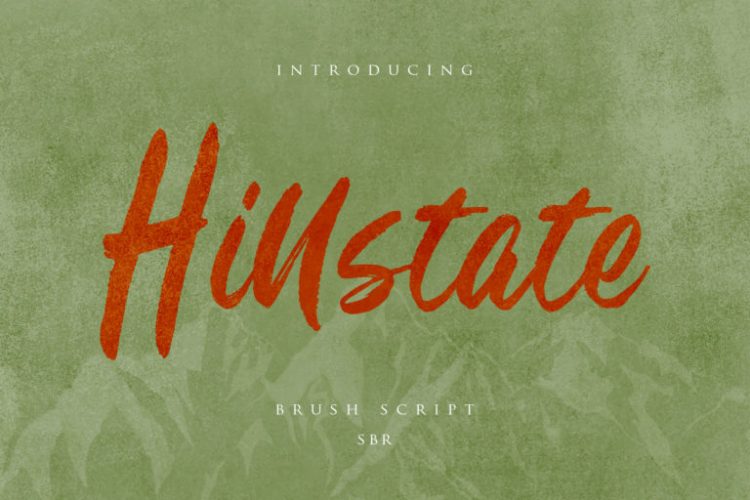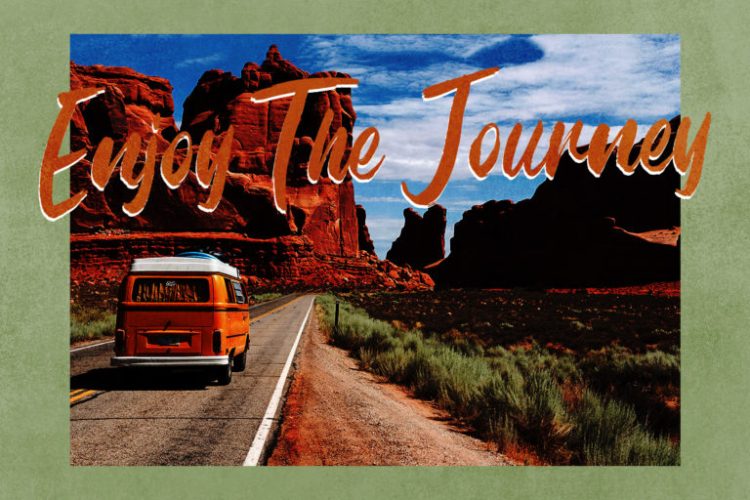
Description
Hillstate font is a font that is made with a very natural style, has a very perfect texture brush, giving a natural impression to your design. Made with great care and detail to get the very maximum results.
Suitable for any design needs: branding, logos, handwritten quotes, product packaging, merchandise, blog design, modern advertising design, invitation, Art Quote, Home decor, Book / Cover Title, Invitation, special events, birthday, custom mug, pillow, t-shirts, any brush lettering needs and more.